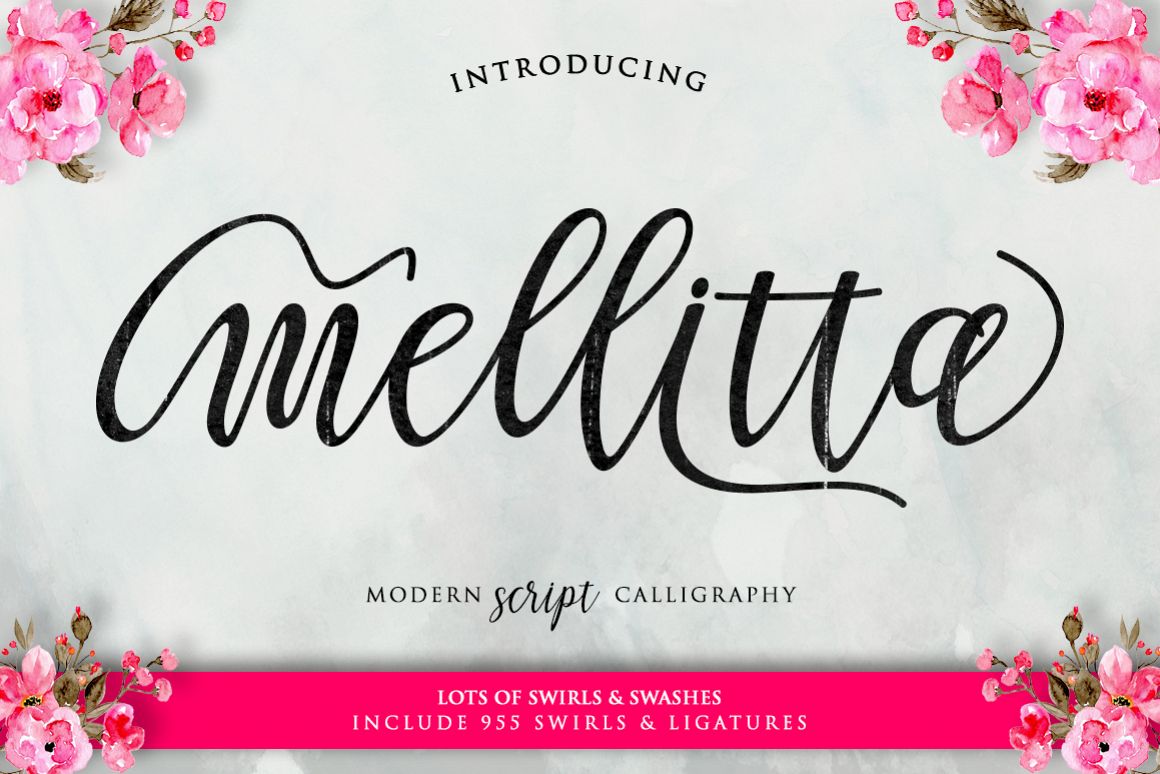
Mellitta Script
Mellita Script
Mellita Script a new fresh & modern script with a handmade calligraphy style, decorative characters and a dancing baseline! So beautiful on invitation like greeting cards, branding materials, business cards, quotes, posters, and more!!
Mellita Script come with 955 glyphs. The alternative characters were divided into several Open Type features such as Swash/Swirl, Stylistic Sets & Stylistic Alternates. The Open Type features can be accessed by using Open Type savvy programs such as Adobe Illustrator, Adobe InDesign, Adobe Photoshop Corel Draw X version, And Microsoft Word. And this Font has given PUA unicode (specially coded fonts). so that all the alternate characters can easily be accessed in full by a craftsman or designer.
Basic Latin A-Z and a-z
Numbers
Symbols
Stylistic Set
Ligatures
PUA Encode
Standard Latin Character